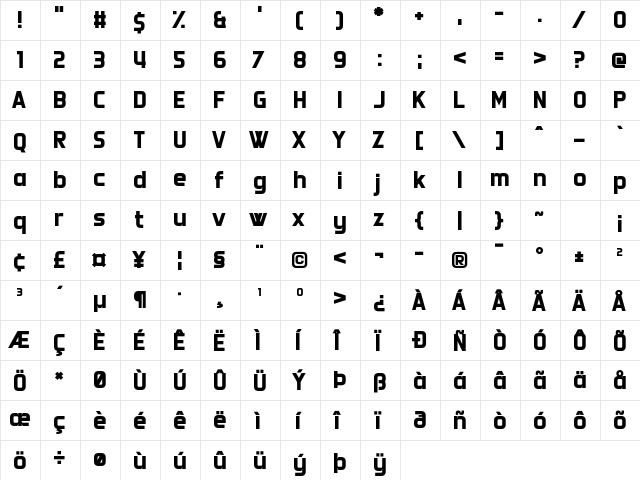
Doubleplus Regular
| Designer | Allison James |
Design Context for Doubleplus Typeface
Doubleplus offers clean, dependable letterforms without strong stylistic allegiance, making it a practical choice for designers who need flexibility.